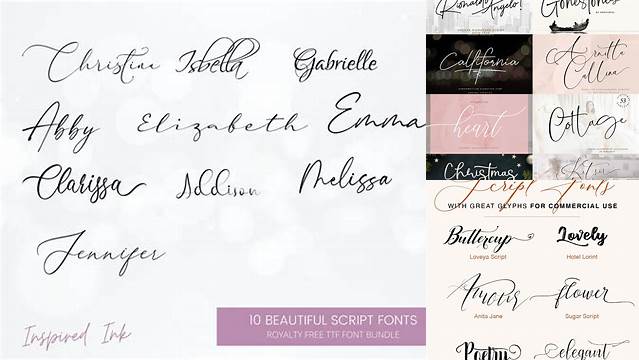
Hey guys! Are you on the hunt for some elegant and sleek thin script fonts? Look no further! In this article, we’re diving deep into the world of thin script fonts that you can download for free. Whether you're a graphic designer, a hobbyist, or just someone who loves beautiful typography, you'll find something here that tickles your fancy. Let's get started!
What are Thin Script Fonts?
Okay, so what exactly are thin script fonts? Well, imagine a typeface that looks like elegant handwriting, but with delicate, slender strokes. Thin script fonts often evoke a sense of sophistication, grace, and modernity. They're perfect for projects where you want to add a touch of class without overwhelming the design. Think wedding invitations, logos, branding materials, and even website headers. Because they are so versatile, thin script fonts have become incredibly popular over the last few years. Their clean and airy appearance makes them a great choice for designs that require a minimalist yet stylish feel. The beauty of these fonts lies in their simplicity and the subtle flair they bring to any project. From adding a personal touch to greeting cards to creating a polished look for business presentations, thin script fonts provide a wide range of applications that can enhance visual communication.
Why Use Thin Script Fonts?
Why should you even bother with thin script fonts? Great question! These fonts are all about creating an impression. They're perfect when you want to convey elegance, modernity, or a personal touch. Imagine designing a logo for a high-end boutique; a thin script font can instantly elevate the brand's image. Or picture creating wedding invitations that exude romance and sophistication. Thin script fonts are your secret weapon for achieving these effects. Moreover, these fonts offer a unique visual appeal that can make your designs stand out. Their delicate lines draw the eye and create a sense of refinement. This makes them ideal for projects that require a touch of sophistication, such as fashion magazines, beauty product packaging, and luxury brand marketing materials. Furthermore, thin script fonts are versatile enough to be used in both digital and print media, ensuring consistency across all your branding efforts. In addition to their aesthetic qualities, thin script fonts can also enhance readability when used correctly. By choosing a font with clear letterforms and adequate spacing, you can create a visually appealing design that is also easy to read. This is especially important for projects with a lot of text, such as brochures, newsletters, and websites.
Where to Find Free Thin Script Fonts
Alright, where can you actually find these gems without breaking the bank? The internet is your friend, guys! There are tons of websites offering free thin script fonts for download. Sites like Dafont, Font Squirrel, and Google Fonts are excellent starting points. Just be sure to double-check the licensing terms before using any font for commercial projects. You want to make sure you're not violating any copyright laws. These platforms are treasure troves, constantly updated with new and exciting fonts. They often have user reviews and ratings, which can help you make informed decisions. Beyond the well-known sites, explore smaller independent font foundries and designer portfolios. Many independent creators offer free fonts as a way to showcase their talent and gain exposure. Following design blogs and social media accounts can also lead you to hidden gems and exclusive freebies. Regularly checking these resources will keep you updated on the latest font releases and trends. Additionally, remember to create a system for organizing your downloaded fonts. Use a font management tool to categorize and preview your fonts, making it easier to find the perfect typeface for your next project.
Thin Script Fonts for Logos
Logos are crucial for branding, and a thin script font can give your logo that extra oomph. When selecting a font for your logo, make sure it's legible and reflects your brand's personality. A thin script font can convey elegance, sophistication, or a personal touch, depending on the style you choose. Imagine a sleek, modern logo for a beauty brand using a delicate, flowing script. Or a handwritten-style font for a bakery that exudes warmth and authenticity. The right thin script font can make your logo memorable and impactful. When designing a logo with a thin script font, consider the overall design elements. Pair the font with simple graphics and a clean color palette to create a balanced and cohesive look. Avoid using overly complex or distracting elements that can clash with the elegance of the script. Also, make sure the font is scalable and looks good in various sizes, from business cards to billboards. Experiment with different font weights and styles to find the perfect balance between readability and visual appeal. Additionally, consider the emotional impact of the font. Does it evoke feelings of trust, sophistication, or creativity? Choose a font that aligns with your brand's values and target audience.
Thin Script Fonts for Wedding Invitations
Planning a wedding? Thin script fonts are practically made for wedding invitations! They add a touch of romance and elegance that's hard to beat. When choosing a font, think about the overall theme of your wedding. A classic, formal wedding might call for a traditional script, while a more modern affair could benefit from a contemporary, minimalist font. Ensure the font is easy to read, and consider using a contrasting font for the body text to improve readability. Wedding invitations are all about creating a lasting impression, and a thin script font can help you achieve that goal. From save-the-dates to thank-you cards, these fonts can add a touch of sophistication to every piece of your wedding stationery. When designing your invitations, consider the overall layout and design elements. Use high-quality paper and printing techniques to enhance the elegance of the script. Add decorative elements such as floral motifs or watercolor accents to complement the font and create a cohesive look. Also, pay attention to the spacing and kerning of the letters to ensure readability and visual appeal. Experiment with different font colors and effects, such as gold foil or embossing, to add a touch of luxury. Furthermore, consider the emotional impact of the font. Does it evoke feelings of romance, joy, or celebration? Choose a font that reflects the unique personality of your wedding.
Thin Script Fonts for Branding
Thin script fonts can be a game-changer for your brand's identity. They can communicate sophistication, creativity, and a personal touch, making your brand more memorable and appealing. When choosing a font for your branding, consider your target audience and the message you want to convey. A thin script font can work wonders for brands in the fashion, beauty, or lifestyle industries. Ensure the font is legible and works well in various sizes and applications, from logos to marketing materials. Branding is more than just a logo; it's about creating a consistent and cohesive visual identity that resonates with your audience. Thin script fonts can play a crucial role in achieving this goal. Use them strategically across your website, social media, packaging, and other branding materials to reinforce your brand's personality and values. When incorporating thin script fonts into your branding, consider the overall design aesthetic. Pair them with complementary fonts, colors, and imagery to create a visually appealing and memorable brand experience. Avoid using overly complex or distracting elements that can detract from the elegance of the script. Also, make sure the font is consistent with your brand's voice and tone. Does it reflect your brand's personality and values? Choose a font that aligns with your overall branding strategy. Furthermore, consider the emotional impact of the font. Does it evoke feelings of trust, sophistication, or creativity? Choose a font that resonates with your target audience and helps you build a strong brand identity.
Thin Script Fonts for Digital Marketing
In the realm of digital marketing, thin script fonts can add a touch of elegance and sophistication to your online presence. Use them in your website headers, social media graphics, and email newsletters to create a visually appealing and engaging experience for your audience. When choosing a font for your digital marketing efforts, make sure it's web-friendly and easy to read on different devices. A thin script font can help you stand out from the competition and create a memorable brand image. Digital marketing is all about capturing attention and driving engagement. Thin script fonts can be a powerful tool for achieving these goals. Use them strategically to highlight key messages, create visual hierarchy, and add a touch of personality to your online content. When incorporating thin script fonts into your digital marketing, consider the overall design aesthetic. Pair them with complementary fonts, colors, and imagery to create a cohesive and visually appealing brand experience. Avoid using overly complex or distracting elements that can detract from the elegance of the script. Also, make sure the font is optimized for web performance and doesn't slow down your website loading speed. Furthermore, consider the emotional impact of the font. Does it evoke feelings of trust, sophistication, or creativity? Choose a font that resonates with your target audience and helps you build a strong online presence.
Pairing Thin Script Fonts
Pairing thin script fonts with other fonts is an art! The key is to create a balance. A thin script font often looks great paired with a simple sans-serif or a clean serif font. This contrast can make your design more visually appealing and easier to read. Think of it like pairing wine with food; you want complementary flavors, not clashing ones. Experiment with different font combinations to find what works best for your project. Font pairing is crucial for creating a harmonious and visually appealing design. A thin script font, with its delicate and elegant lines, can be beautifully complemented by a variety of other typefaces. When pairing thin script fonts, consider the overall design aesthetic and the message you want to convey. A classic and formal design might benefit from pairing a thin script with a traditional serif font, while a more modern and minimalist design could pair it with a clean sans-serif font. Experiment with different font weights, sizes, and styles to find the perfect balance between readability and visual appeal. Also, pay attention to the spacing and kerning of the letters to ensure a cohesive and harmonious look. Furthermore, consider the emotional impact of the font pairing. Does it evoke feelings of trust, sophistication, or creativity? Choose font combinations that align with your brand's values and target audience.
Before you go crazy downloading fonts, it's crucial to understand font licensing. Most free fonts come with specific terms of use. Some are free for personal use only, while others can be used commercially. Always, always check the license agreement to avoid any legal issues down the road. It's a bit boring, I know, but it's super important! Understanding font licensing is essential for using fonts legally and ethically. Font licenses outline the terms and conditions under which you can use a font, including whether it's free for personal or commercial use. Ignoring font licenses can lead to legal issues and financial penalties. Before downloading and using any font, carefully review the license agreement to ensure you're complying with the terms. Pay attention to restrictions on modifying the font, embedding it in digital documents, or using it for commercial purposes. If you're unsure about the terms of a license, contact the font designer or foundry for clarification. Additionally, consider using a font management tool to keep track of your font licenses and ensure compliance. By understanding and respecting font licenses, you can protect yourself from legal risks and support the designers who create the fonts you love.